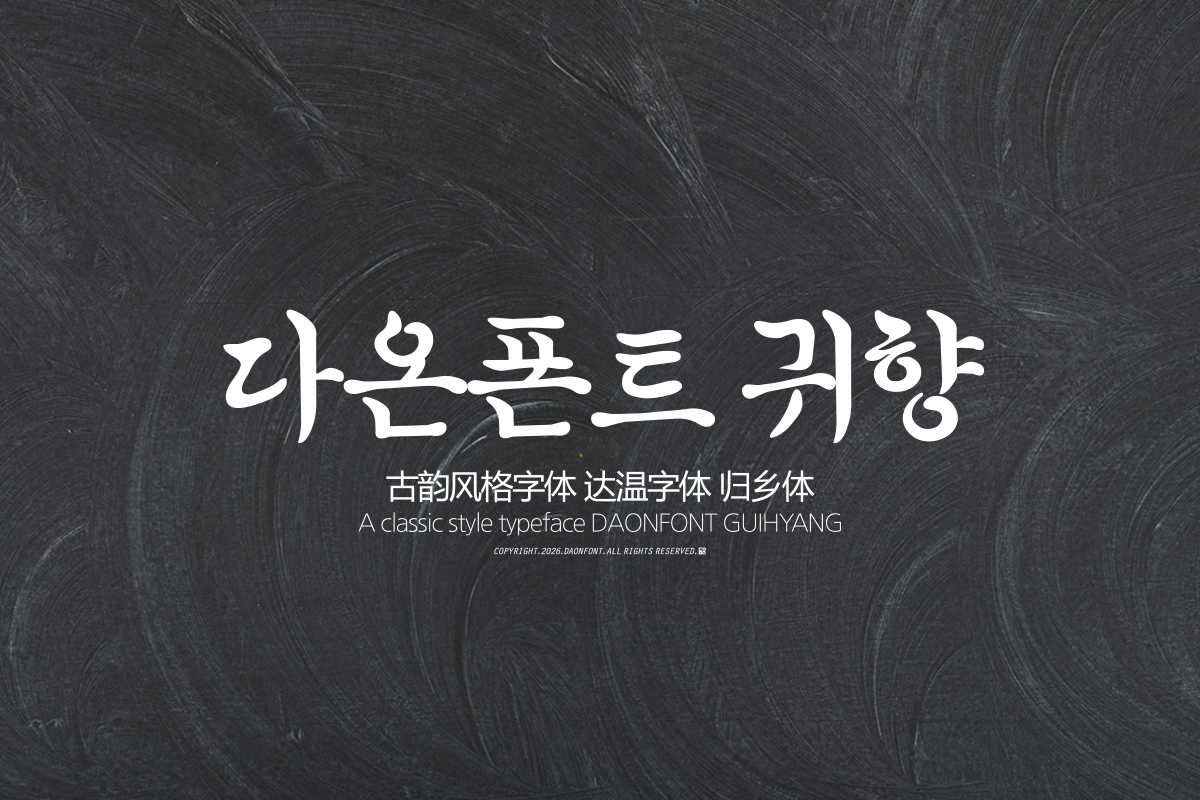
DAON GWIHYANG
DaonFont 'GWIHYANG' is a brushstroke-style Hangul typeface that captures the natural sensibility of traditional calligraphy. In particular, true to its name, 'GWIHYANG' (Homecoming), it is well-suited for expressing emotional messages such as hometown, memories, longing, comfort, and human warmth.